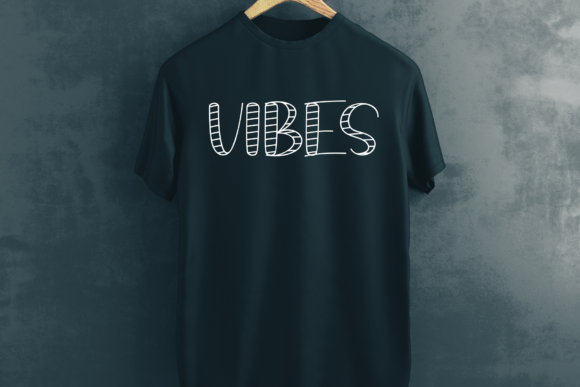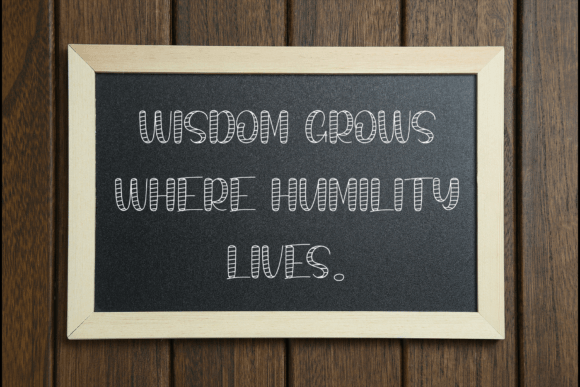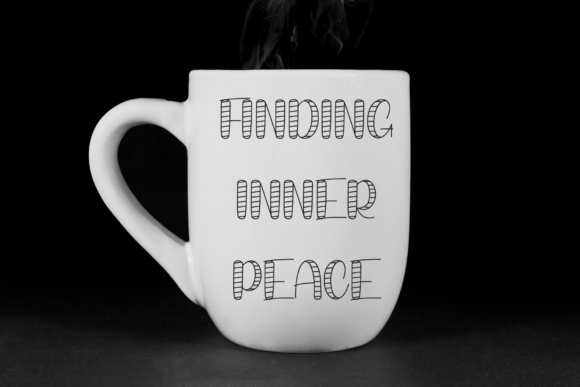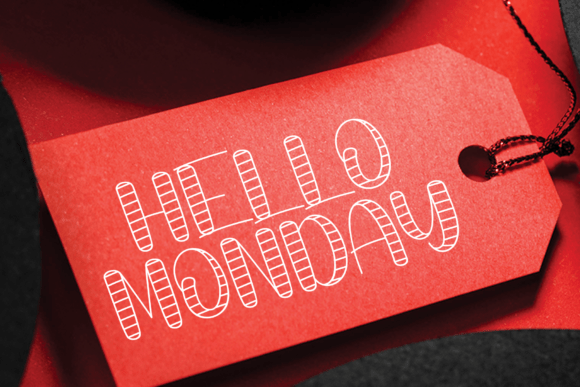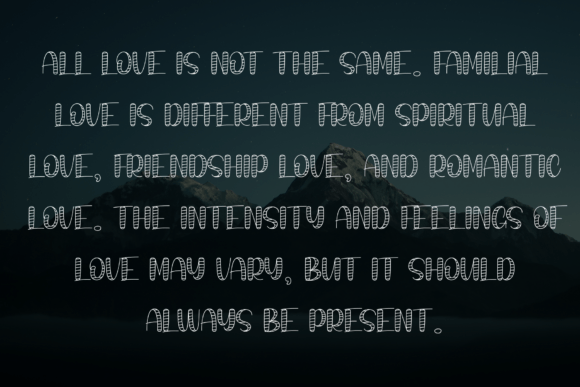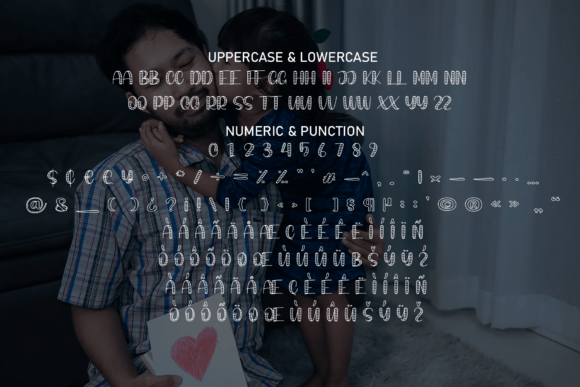
Introducing Daddy Valentine Font: Elevate Your Designs with a Touch of Elegance
Are you a designer, crafter, or DIY enthusiast looking for a unique and stylish font to take your projects to the next level? Look no further than the Daddy Valentine Font, a special creative product designed to provide you with an extraordinary experience. This beautifully crafted font is perfect for a wide range of applications, from wall displays and wedding invitations to social media post logos, advertisements, product packaging, and more.
The Latest Style Letters for Your Creative Projects
The Daddy Valentine Font features the latest style letters that are sure to add a touch of elegance and sophistication to your designs. With its tasteful handwriting style, this font is ideal for anyone looking to create visually appealing and professional-looking projects. Whether you’re working on a wedding invitation, a social media post, or a product design, this font is sure to make your project stand out.
The Daddy Valentine Font is incredibly versatile, making it perfect for a wide range of design applications, including:
- Wall displays: Add a touch of elegance to your wall displays, posters, and banners.
- Wedding invitations: Make your wedding invitations truly special with this beautiful font.
- Social media post logos: Elevate your social media presence with custom logos and graphics.
- Advertisements: Create eye-catching ads that grab attention with this stunning font.
- Product packaging: Add a touch of sophistication to your product packaging and labels.
- Product designs: Use this font to create unique and stylish product designs.
- Labels: Create custom labels for your products or gifts.
- Photography: Use the font as a watermark or overlay for your photos.
- Invitations: Create custom invitations for parties, events, or special occasions.
- Stationery: Add a touch of elegance to your stationery, letters, and cards.
Why Choose Daddy Valentine Font?
So, why choose the Daddy Valentine Font for your design needs? Here are just a few reasons:
- Unique and stylish: This font is unlike anything you’ve seen before, with its beautiful handwriting style and elegant design.
- Versatile: Use it for a wide range of design applications, from wall displays to social media posts.